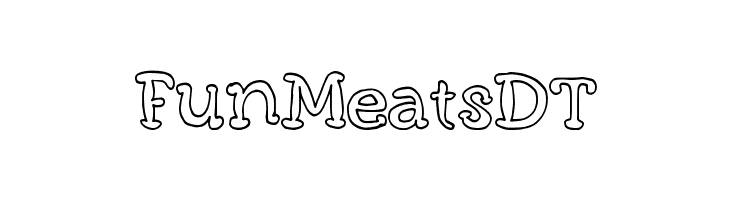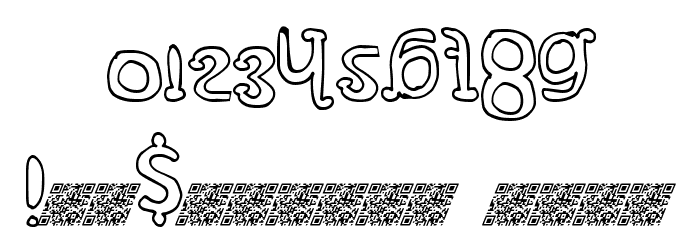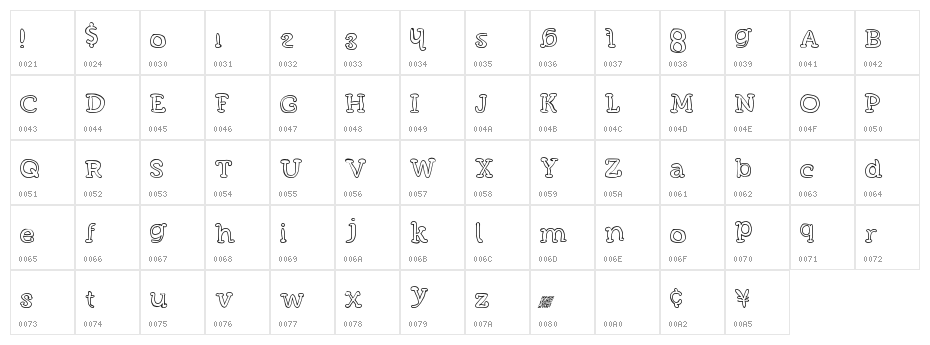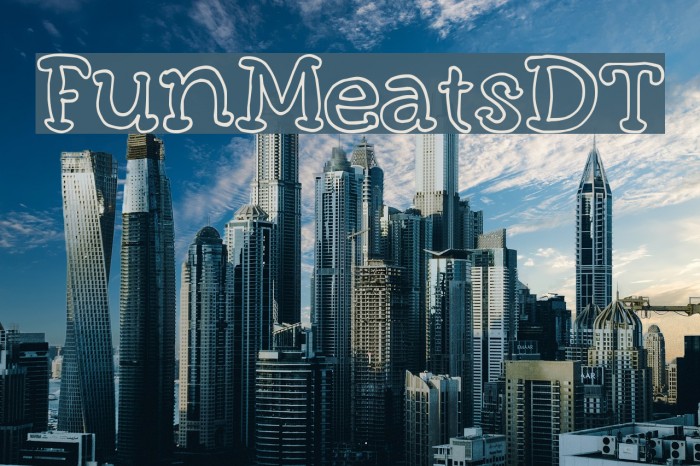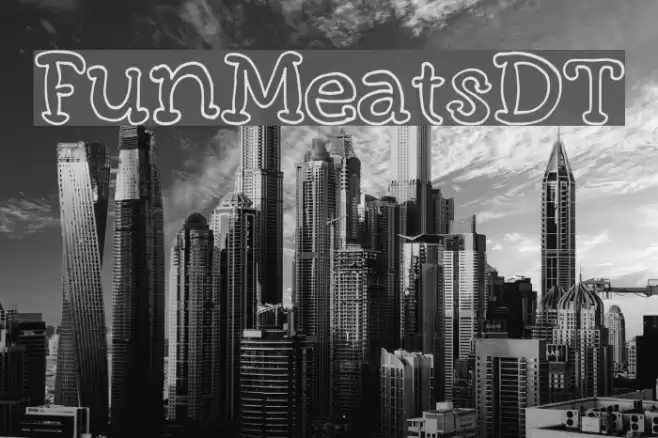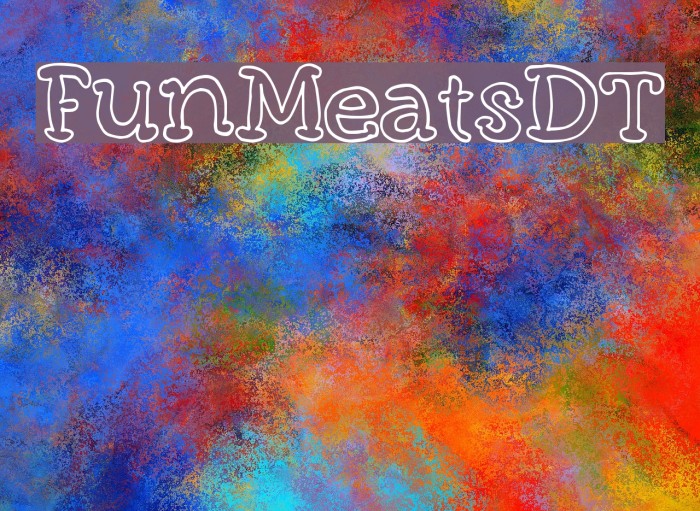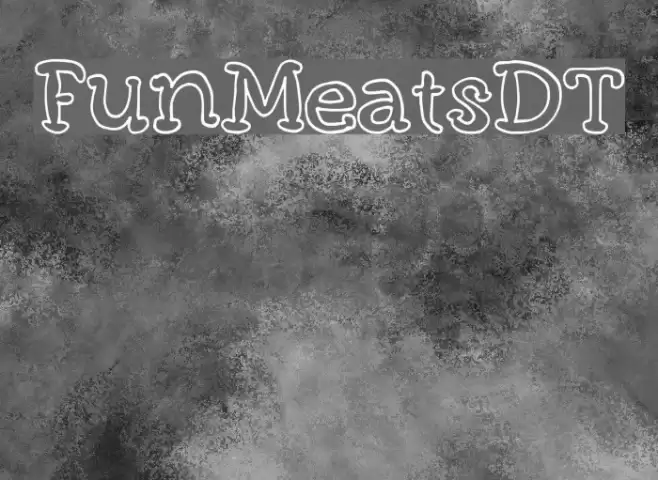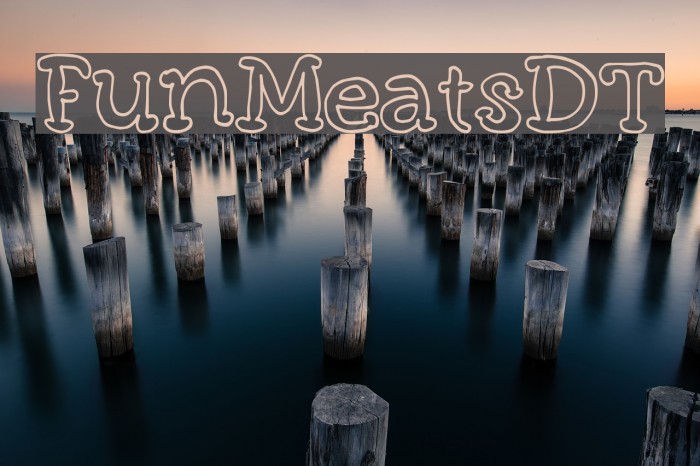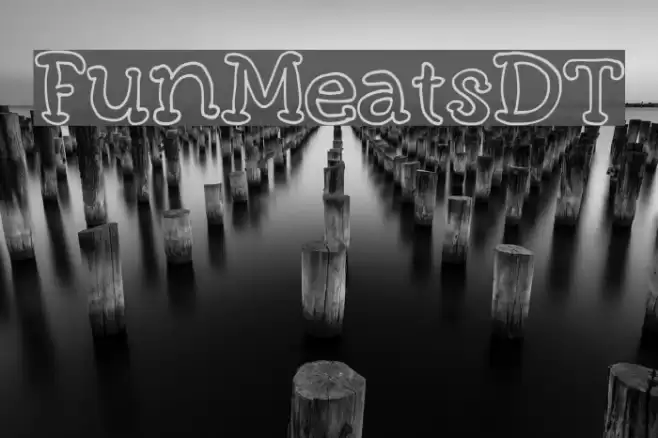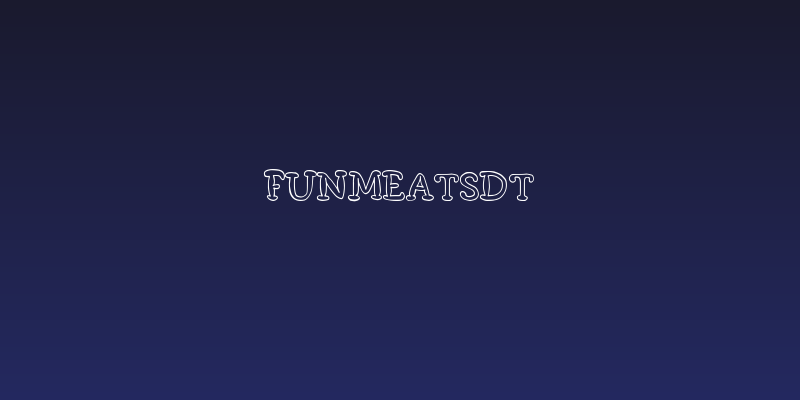
FunMeatsDT Font
FunMeatsDT Description
This playful and whimsical font features a bold, outlined style with a hand-drawn appearance. The characters are rounded and slightly irregular, giving them a friendly and approachable look. The uppercase and lowercase letters maintain a consistent style, with a slight bounce in the baseline that adds to the casual feel. Numbers and special characters are designed to match the playful aesthetic, making the font suitable for creative and informal projects. The overall design is eye-catching and fun, perfect for capturing attention in a lighthearted context.